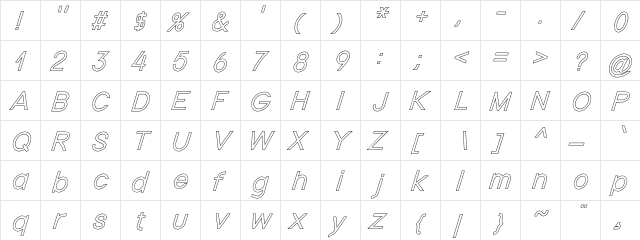
Nordica Plus NordicaClassicLightOblOl Font Preview
Nordica Plus NordicaClassicLightOblOl
Design Context for Nordica Plus Typeface
Nordica Plus has the warm character of retro typography — evoking diners, record sleeves, and the golden age of print advertising. The delicate stroke weight brings airiness and refinement to layouts.
Ideal for diner signage, record shop branding, 70s/80s-themed projects, and heritage product labels.
Font Pairing: Combine Nordica Plus with a simple slab or neutral sans — period-accurate companions reinforce the vintage feel without competing for attention.
Pro Tip: Lean into Nordica Plus's period character by pairing it with aged paper textures, muted colour palettes, and vintage illustration styles.